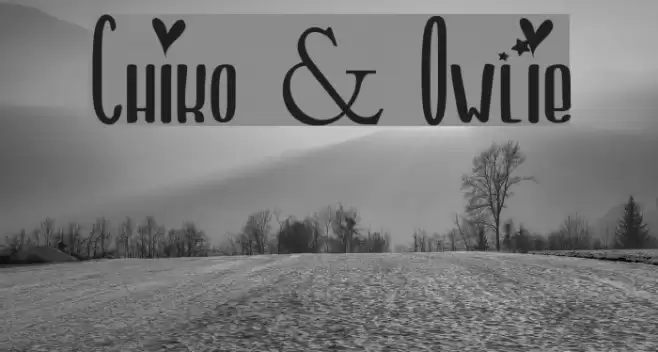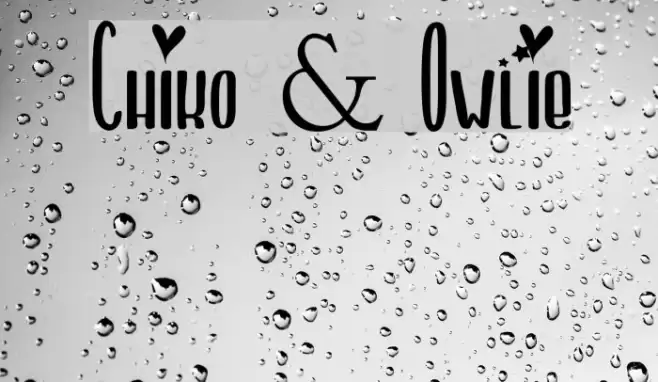
Chiko & Owlie Font
Chiko & Owlie Description
This font features a playful and whimsical design with elongated, narrow characters that have a hand-drawn feel. The uppercase letters are tall and slender, while the lowercase letters maintain a consistent style with a slightly more relaxed form. The numbers are bold and clear, complementing the overall aesthetic. Special characters are creatively integrated, adding to the font's unique charm. The strokes are consistent in width, providing a uniform appearance. This font is ideal for projects that require a fun and engaging look, such as children's books, playful branding, or creative posters.
A playful, hand-drawn font with elongated, narrow characters and a whimsical style from Uncategorized fonts.
- Proposed Projects: Ideal for children's books, playful branding, creative posters, and whimsical invitations.
- Overall Style: Whimsical, Playful